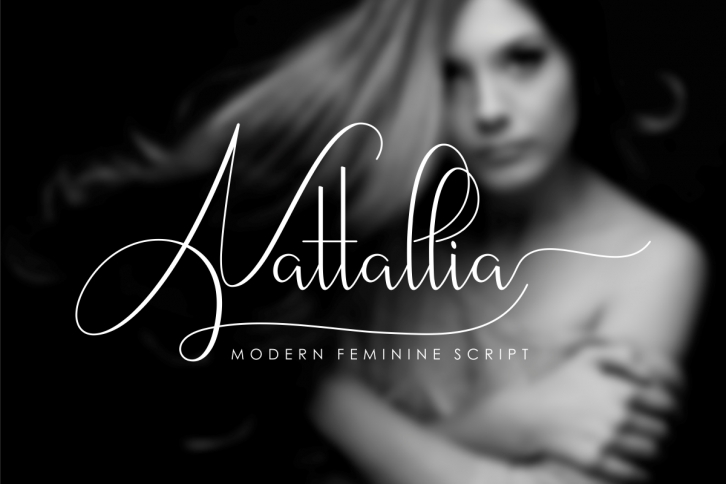
Nattallia Modern Feminine Script is a beautiful font that was designed by bNue. It's a great choice for designers and creatives who need such a font. It was released on May 3, 2018 and the file size is 12.25 MB. Nattallia Modern Feminine Script may give a more youthful, expressive and casual look to your project. It is a very beautiful, refined, elegant, and high-quality font.